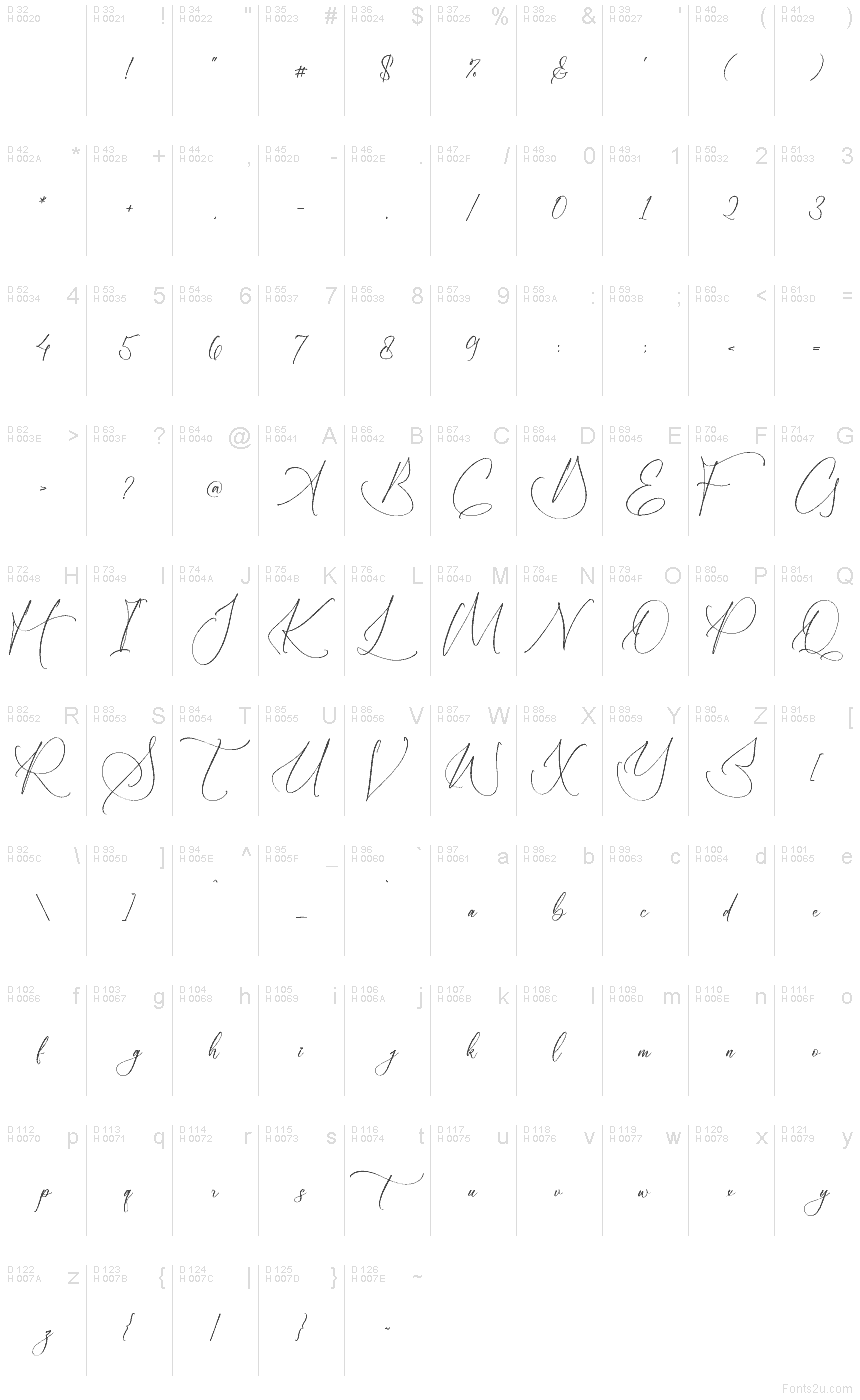
Moriyathena
Moriyathena font by Storytype Studio is a free elegant calligraphy script font. It stands out with feather-light hairlines, velvety curves, and sweeping ascenders that glide into airy flourishes. A playful heart accent and fluid pressure contrast give it a romantic, hand-inked rhythm without feeling fussy. Generous swashes create movement while tidy spacing keeps words legible and luminous at display sizes.
Using Moriyathena, headlines feel intimate and upscale—wedding invitations, save-the-dates, boutique logos, beauty packaging, Instagram quotes, greeting cards, and event signage all shine. This free font benefits from a touch of extra tracking and thrives large. Pair it with a quiet sans serif in small caps to let the script lead while keeping layouts crisp and modern.